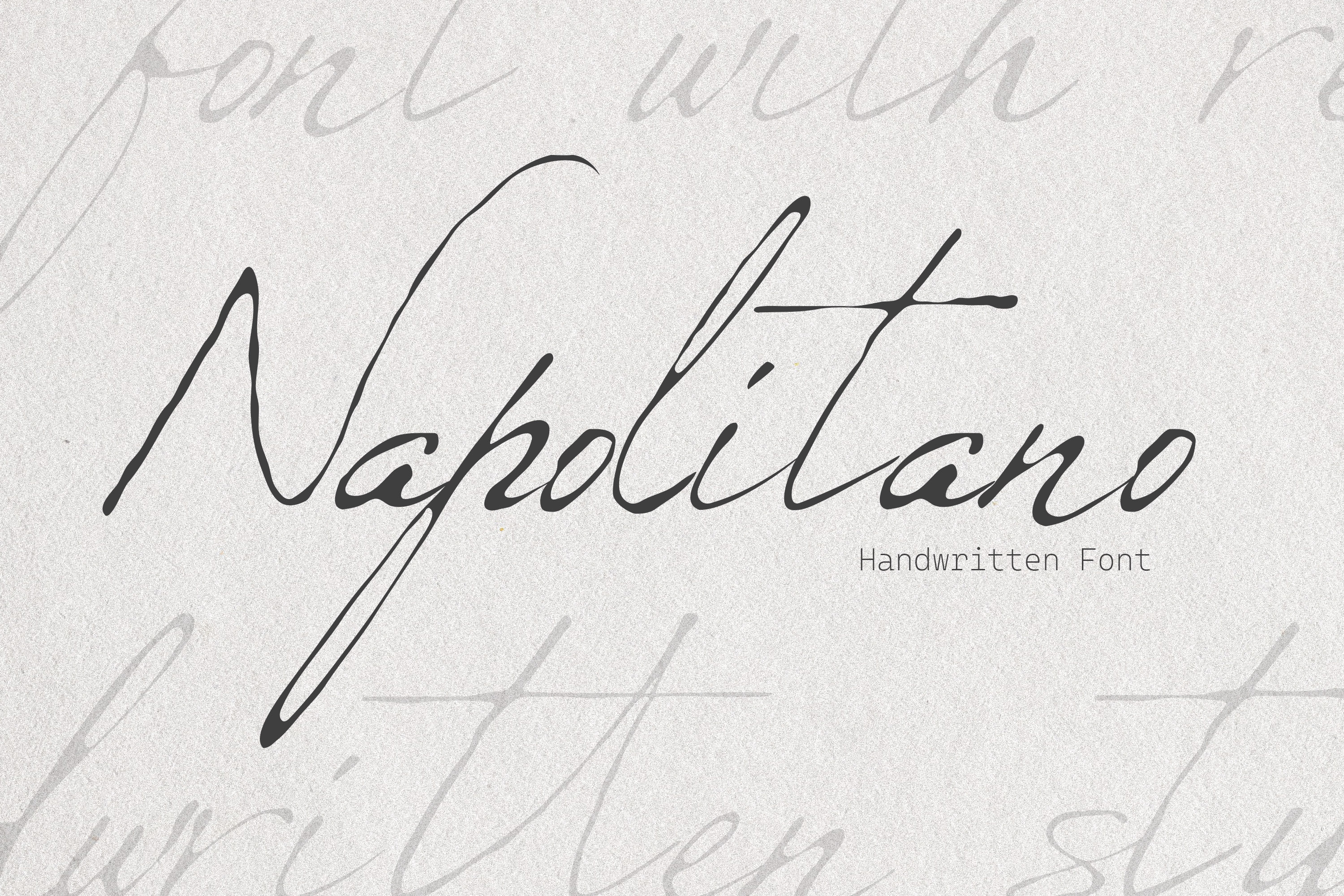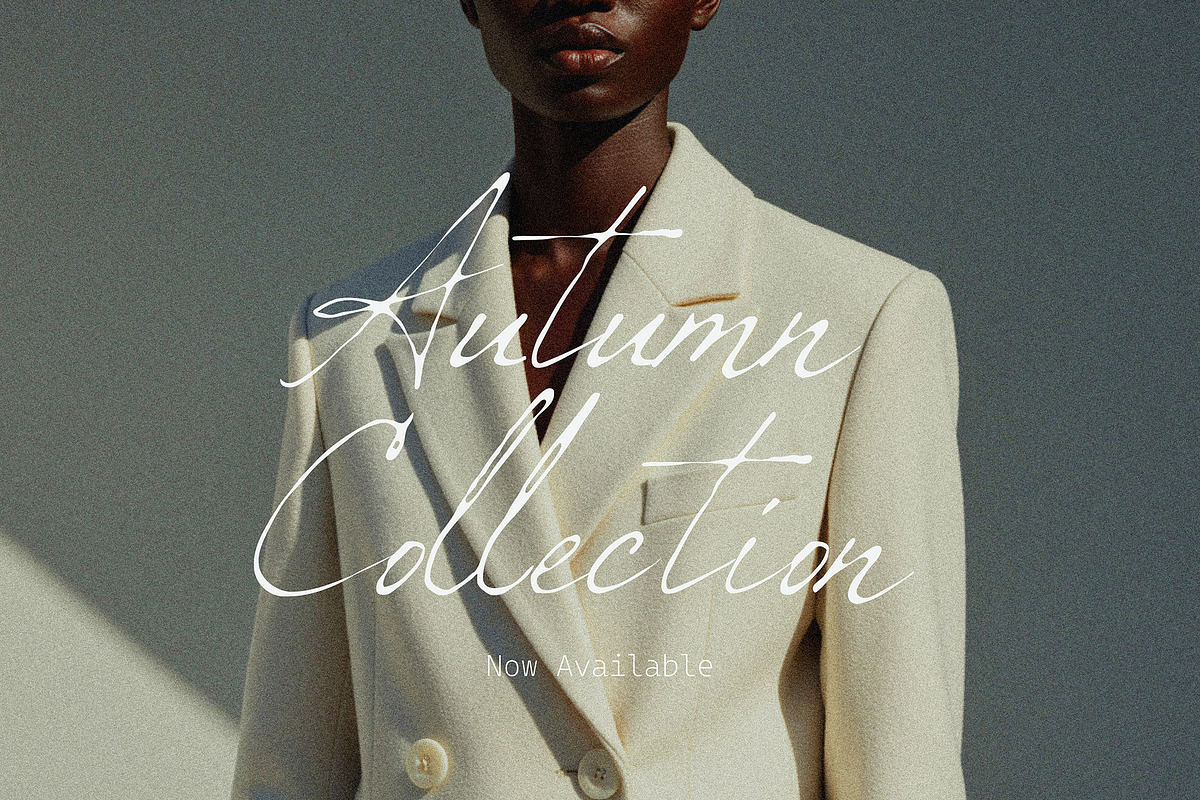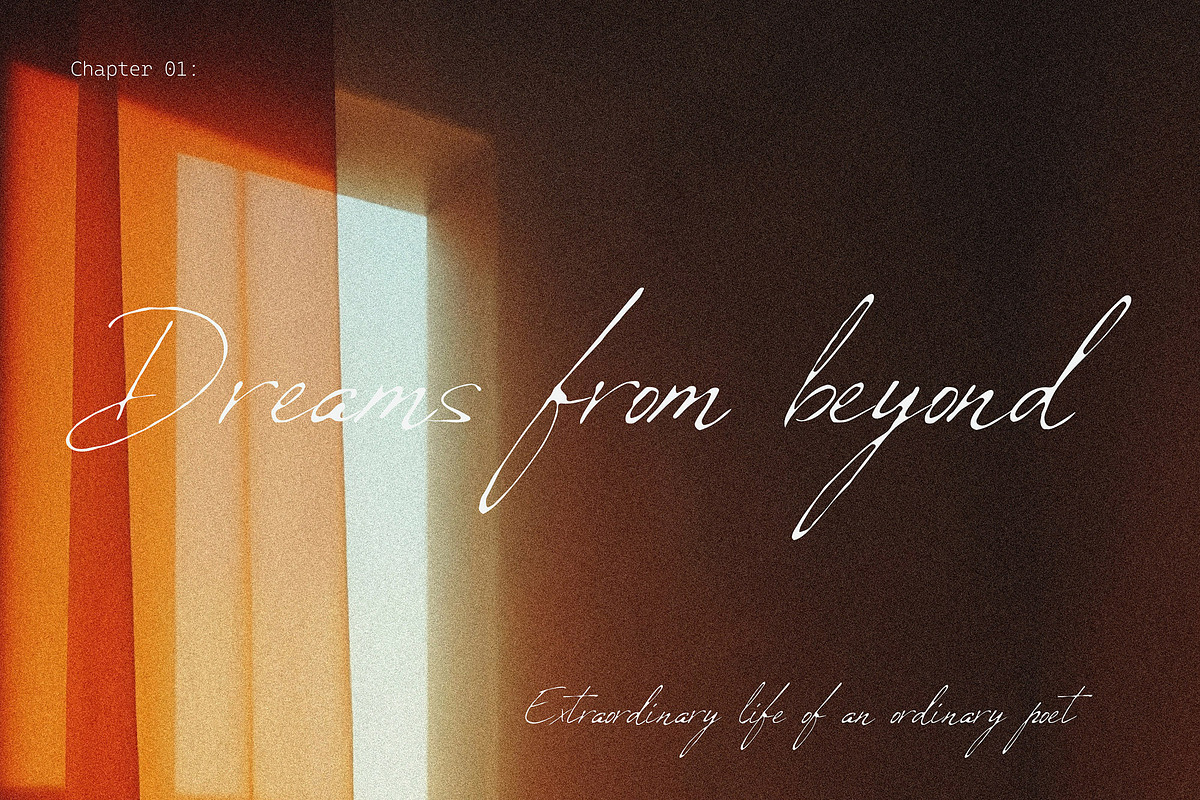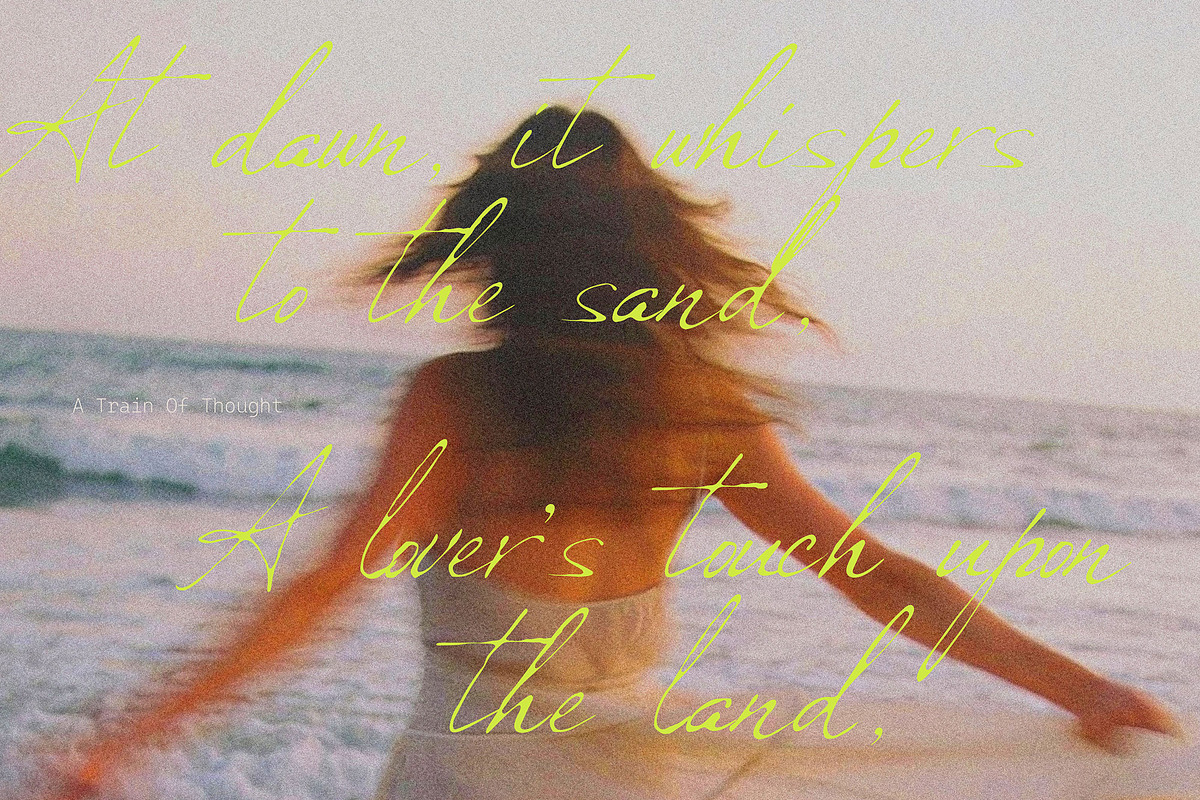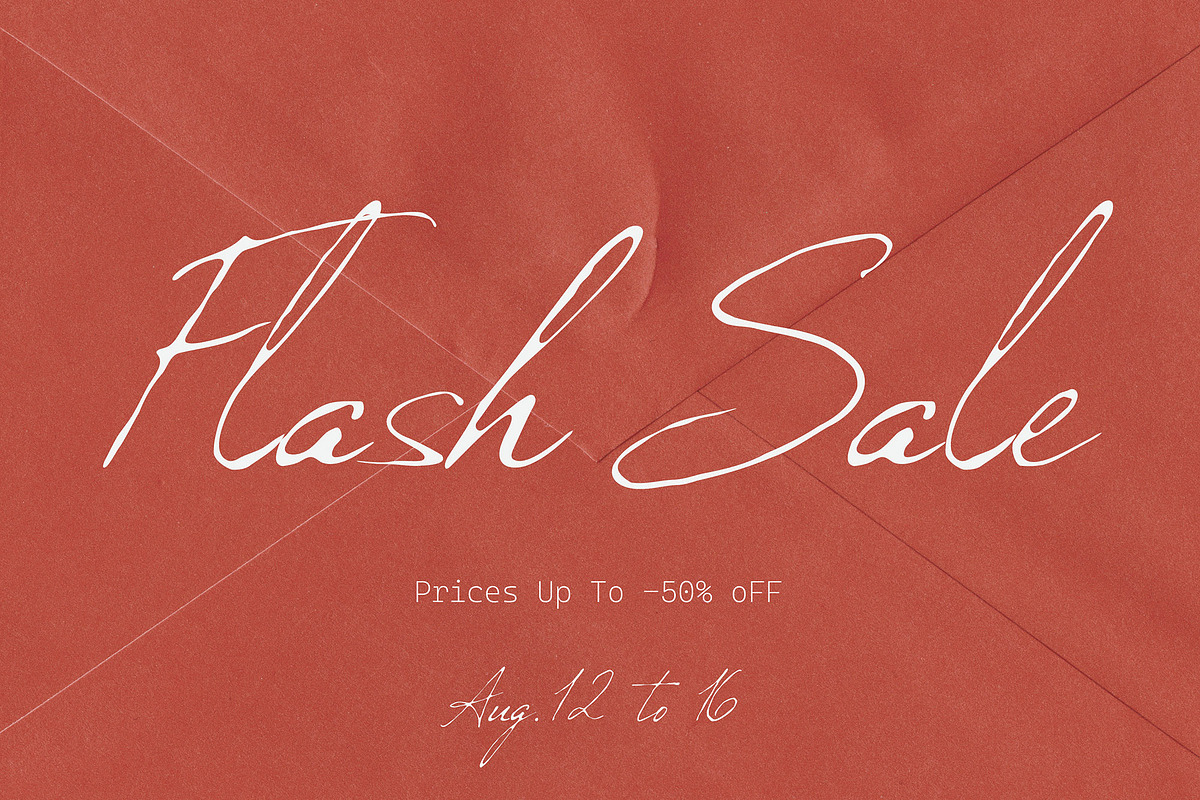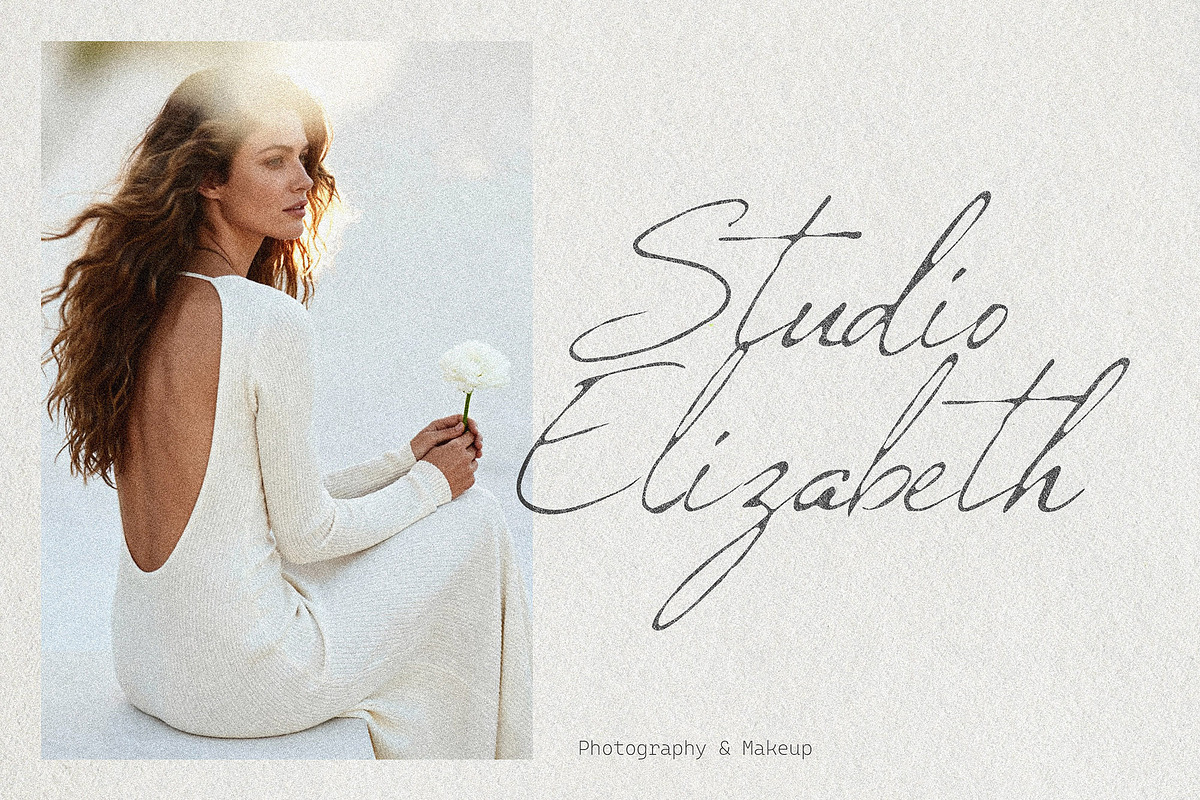
Napolitano - Handwritten Script Font
Napolitano is a modern handwritten script font with a natural, flowing rhythm and elegant long strokes. Inspired by authentic pen lettering, this font blends casual charm with refined sophistication, making it perfect for designs that need a personal, stylish touch. With its smooth curves, tall ascenders, and expressive ligatures, Napolitano feels organic and effortless—like real handwriting, but polished enough for professional branding. It works beautifully as a statement font while remaining readable and versatile. Whether you’re creating logos, invitations, or social media designs, Napolitano adds warmth, character, and timeless elegance to any project.
- Logos & brand identities
- Wedding invitations & save-the-dates
- Greeting cards & stationery
- Photography watermarks
- Journals, planners & notebooks
- Fashion, beauty & lifestyle brands